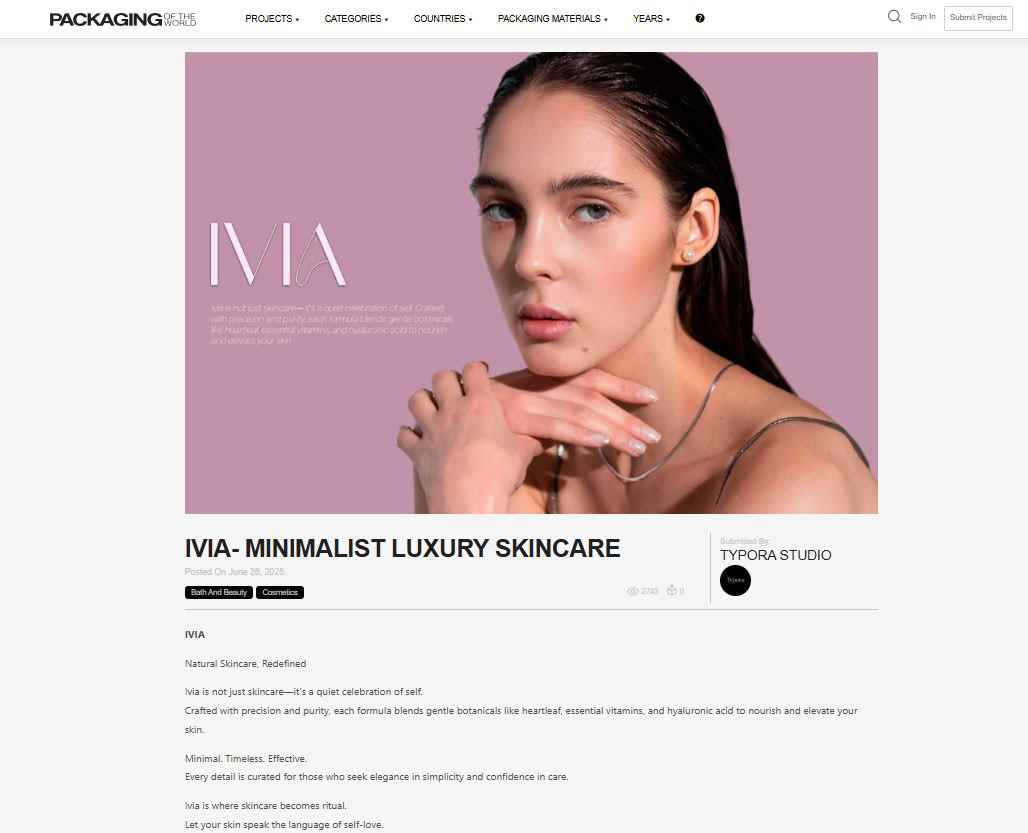
IVIA – Skincare Packaging Design
With IVIA, our goal was to create packaging that speaks softly but powerfully — blending elegance, functionality, and purity. We used a minimalist visual language to reflect the brand’s focus on gentle, botanical ingredients and self-care rituals.
The soft color palette, clean typography, and refined layout were crafted to evoke a sense of calm, trust, and premium quality, making each product feel like a personal moment of care.